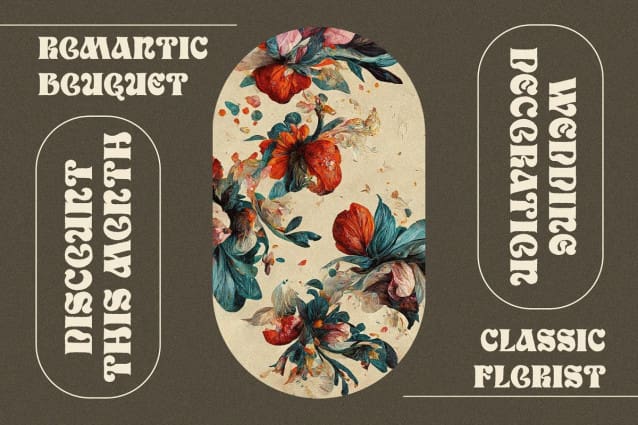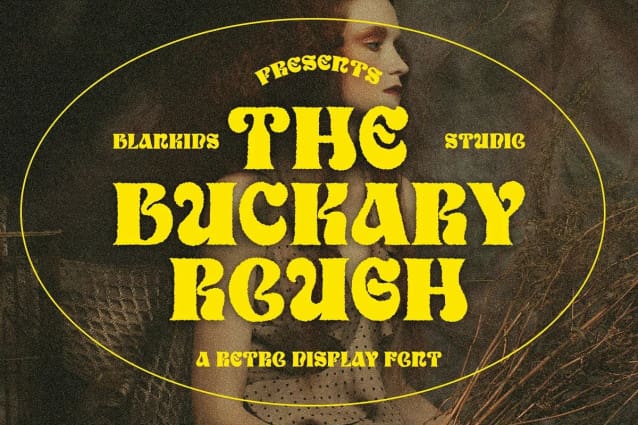
Buckary Font
Buckary Font a Retro Display Font, Inspiring from retro style typography. This font is perfect for a design that makes it more attractive and playful. made with a very good level of aesthetics making this font suitable for book cover, poster, packging, merchandise, logotype and much more.